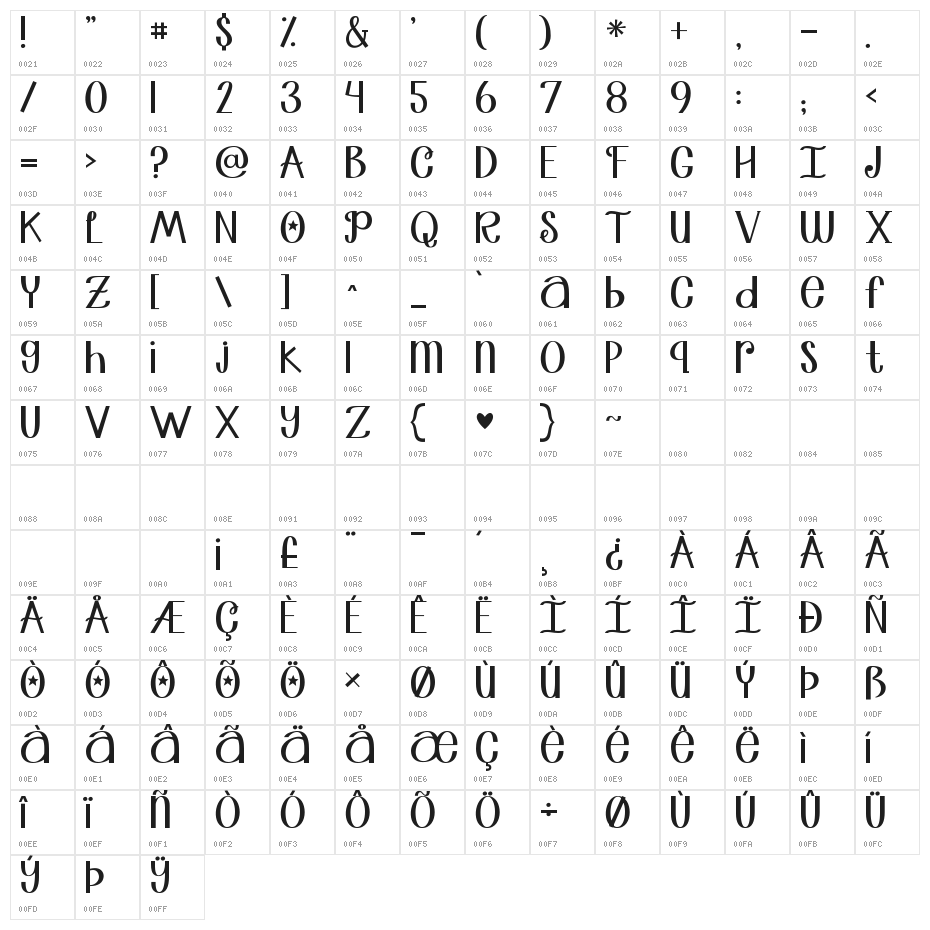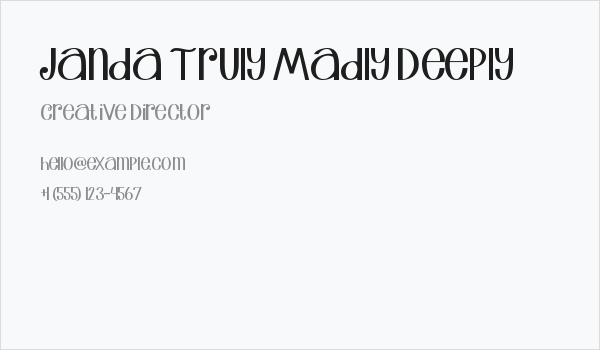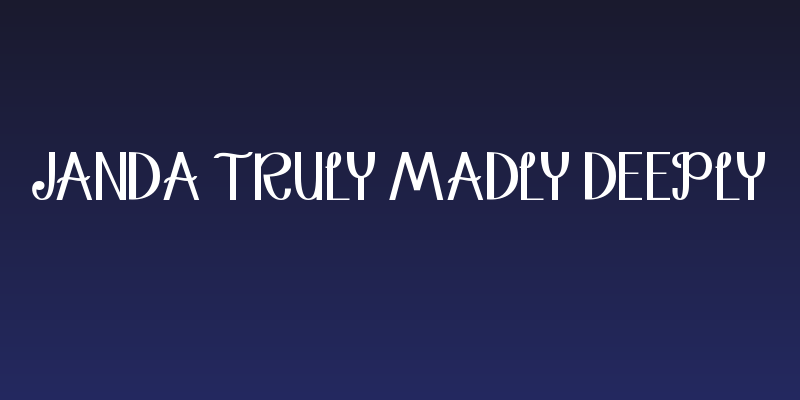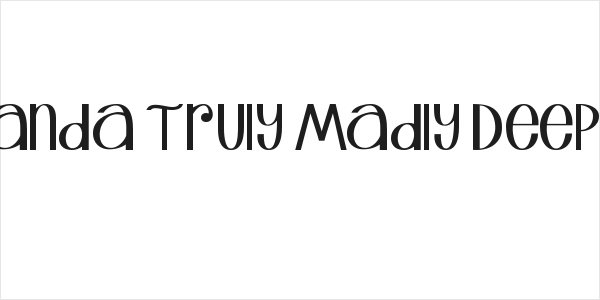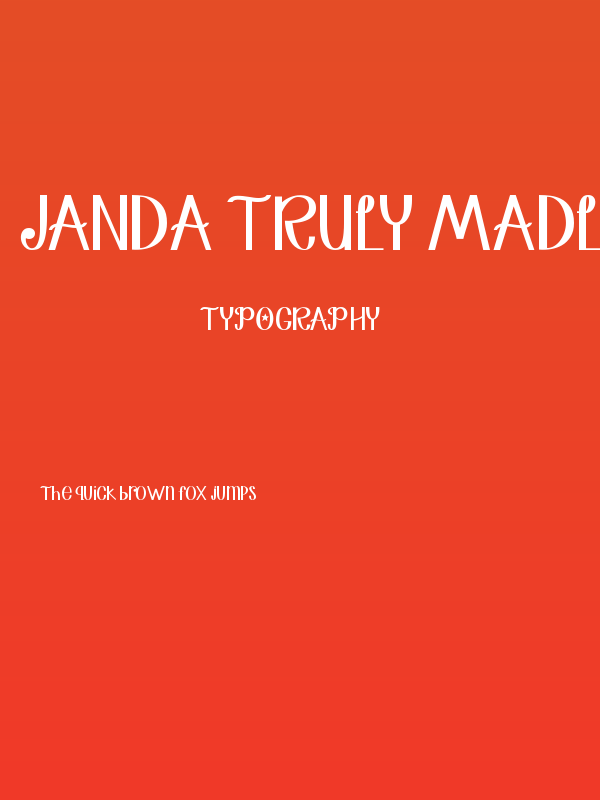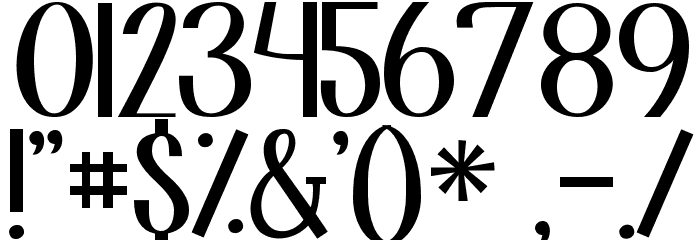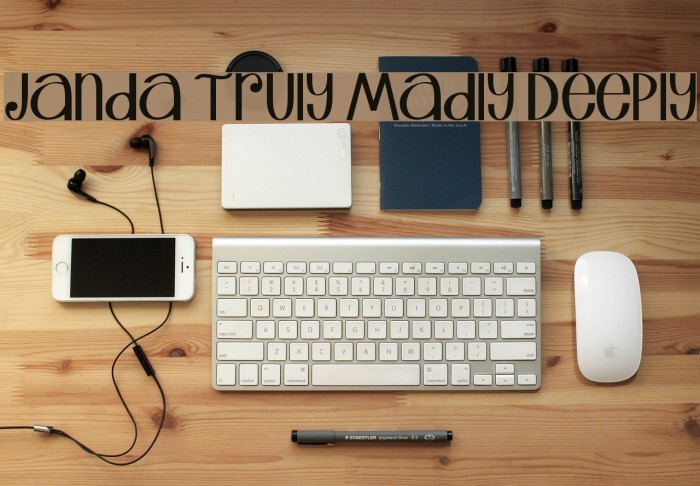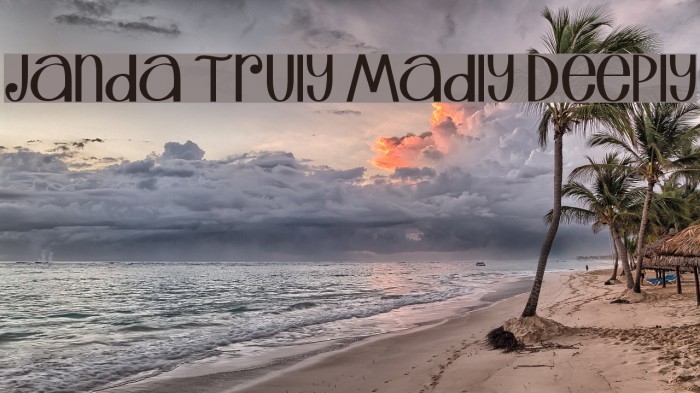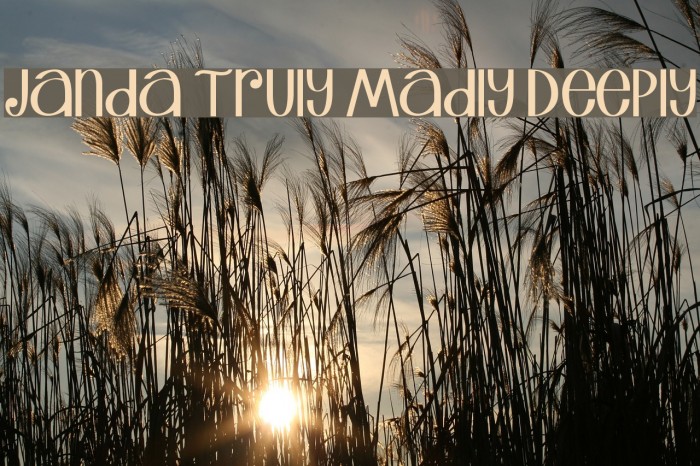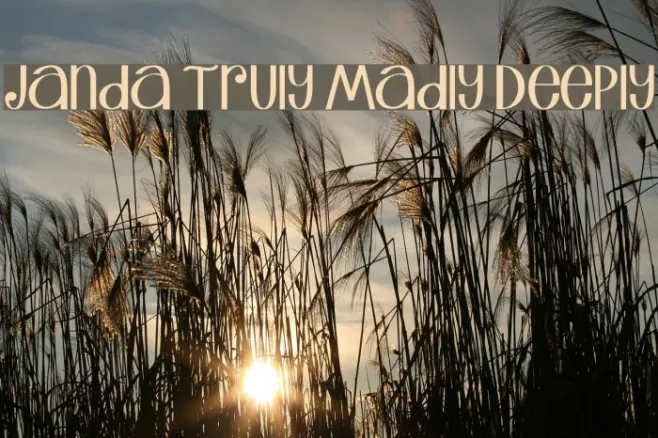
Janda Truly Madly Deeply Font
Janda Truly Madly Deeply Description
This font features a playful and whimsical style with a unique blend of curves and straight lines. The uppercase letters exhibit a mix of bold and slender strokes, creating a dynamic visual appeal. Some characters, like the 'O' and 'Q', incorporate decorative elements such as stars, adding a touch of creativity. The lowercase letters maintain the playful theme with rounded edges and occasional flourishes, particularly in letters like 'g' and 'y'. The numerals are bold and consistent, matching the overall aesthetic. Special characters are designed with the same playful flair, ensuring a cohesive look across all elements.
| Overall Style | Playful, Whimsical |
| Proposed Projects | Ideal for children's books, playful branding, greeting cards, and creative posters. |